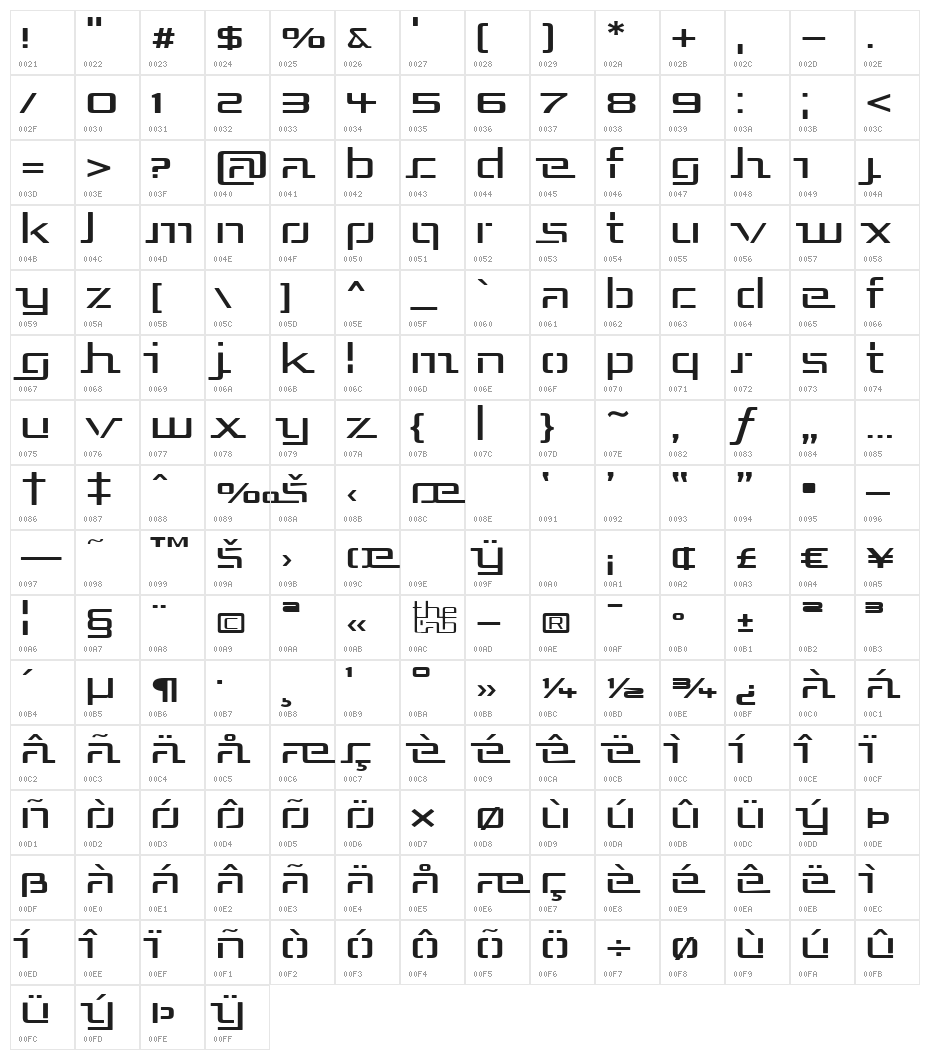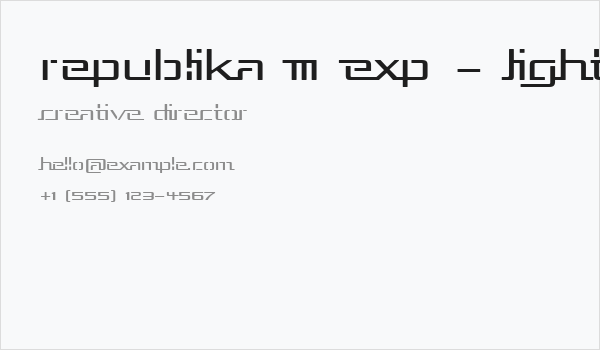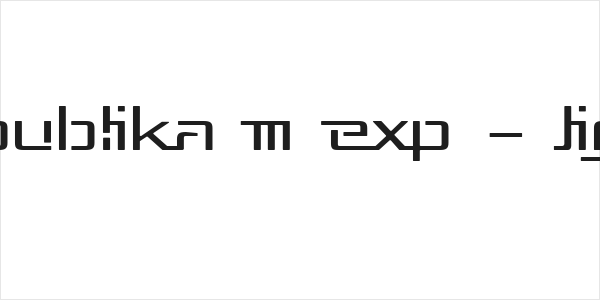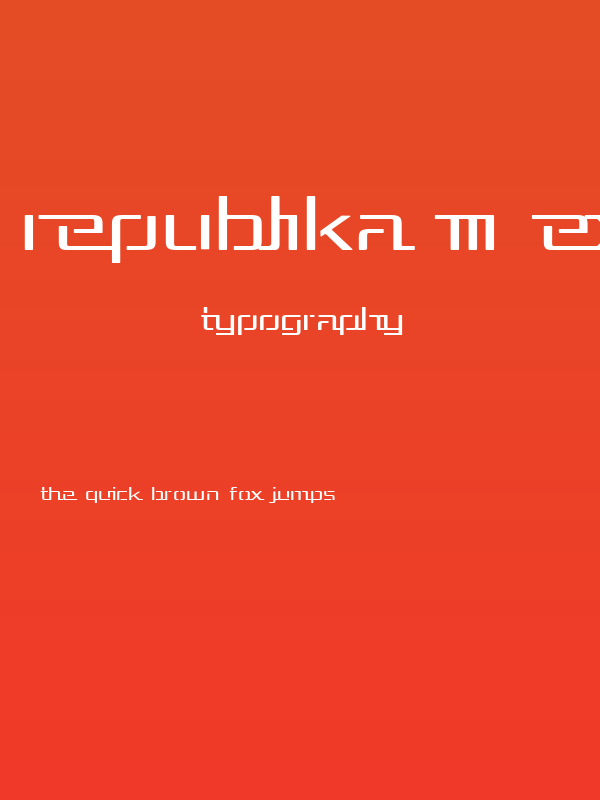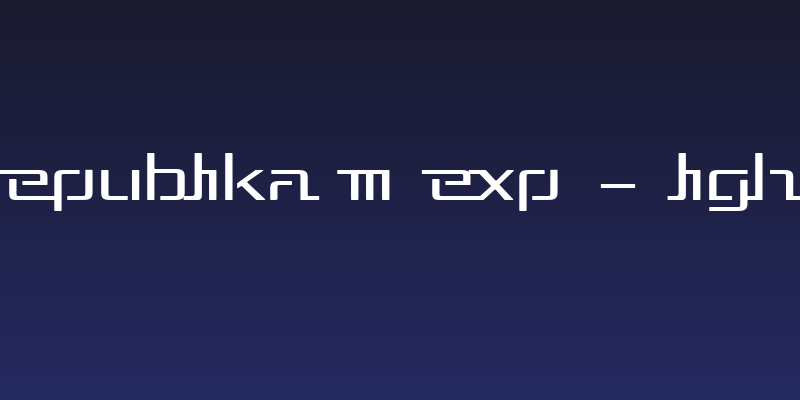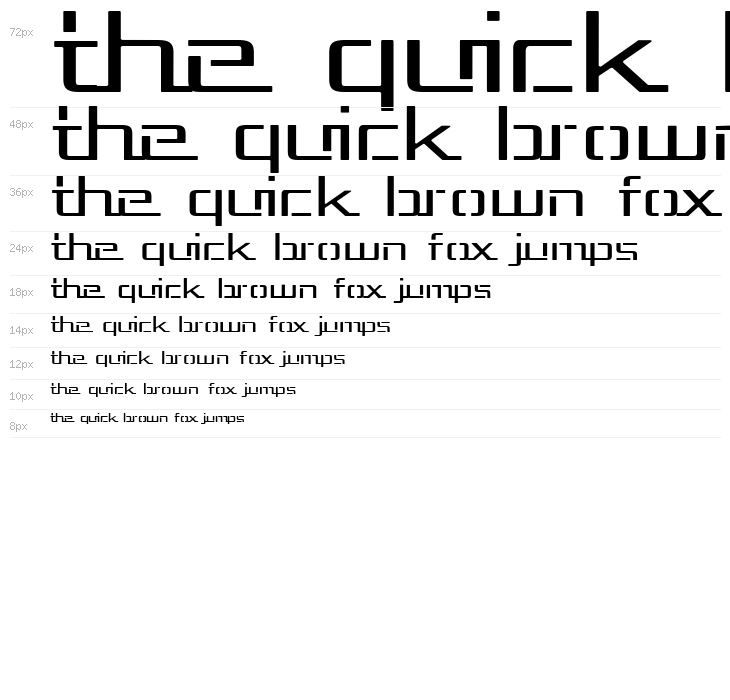
Republika III Exp - Light Font
Republika III Exp - Light Description
This font features a modern, geometric design with a futuristic feel. The characters are constructed with clean, straight lines and sharp angles, giving it a structured and technical appearance. The uppercase and lowercase letters maintain a consistent style, with a focus on simplicity and readability. The numerals and special characters follow the same design principles, ensuring uniformity across all glyphs. The font's light weight adds to its sleek and minimalistic aesthetic, making it suitable for contemporary design projects.
| Proposed Projects | Ideal for tech branding, digital interfaces, modern posters, and futuristic-themed projects. |